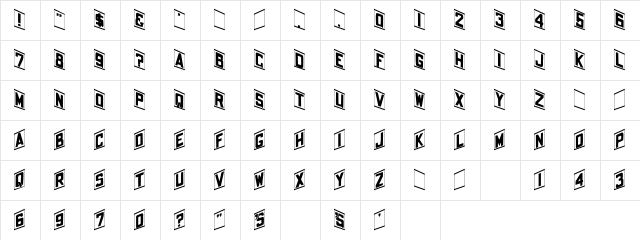
Argyle Plain Font Preview
Argyle Plain
Argyle Plain Font Details
Design Context for Argyle Typeface
Argyle is a composed and adaptable typeface that performs quietly and consistently across a wide range of design contexts.